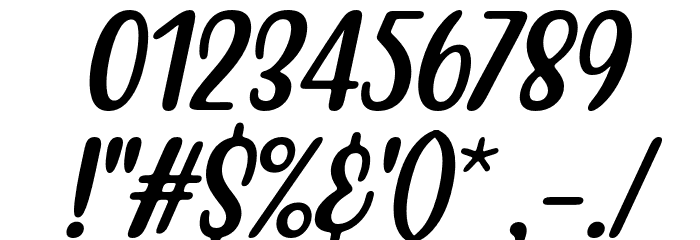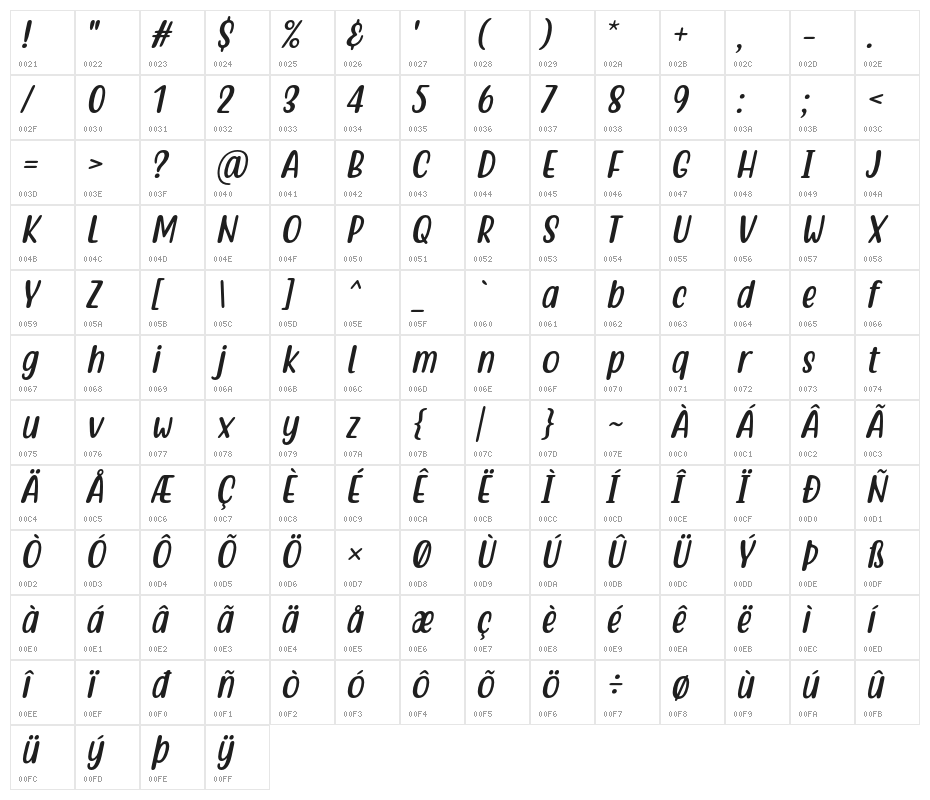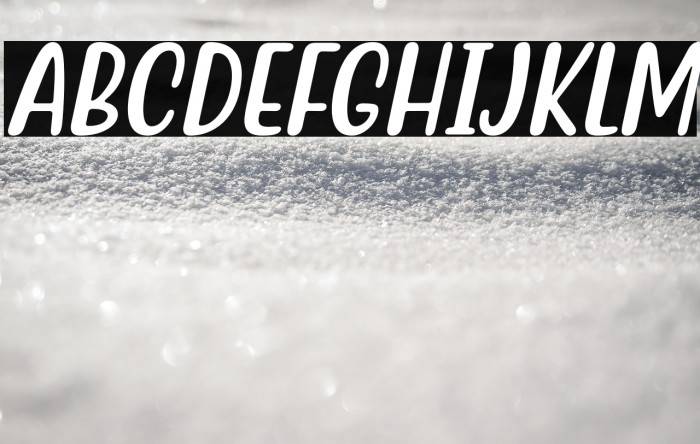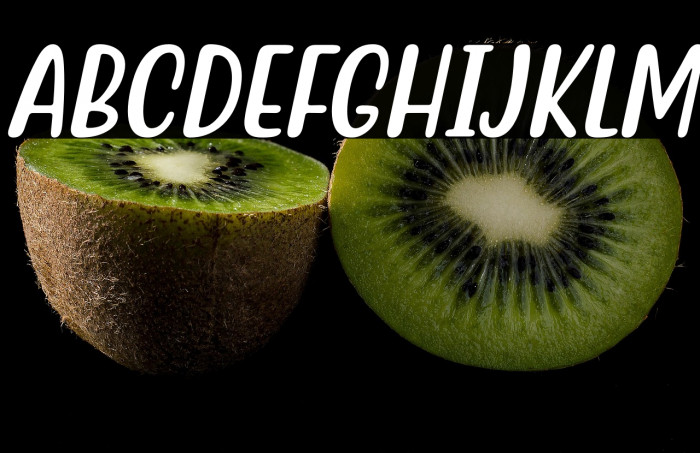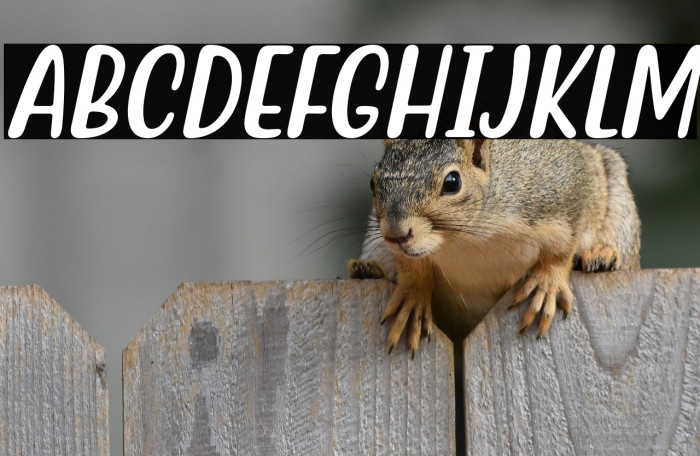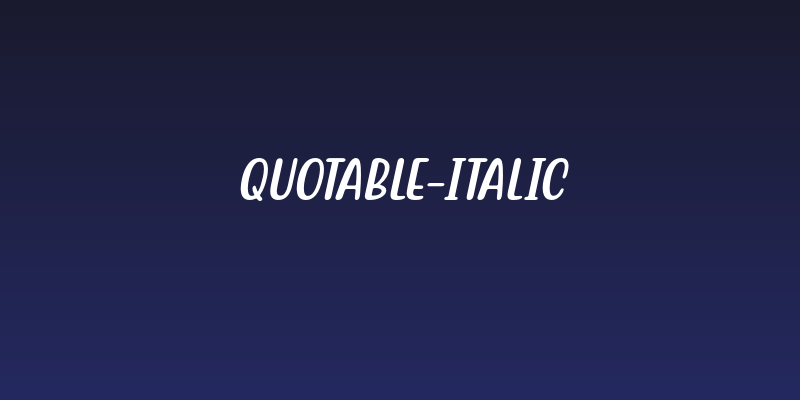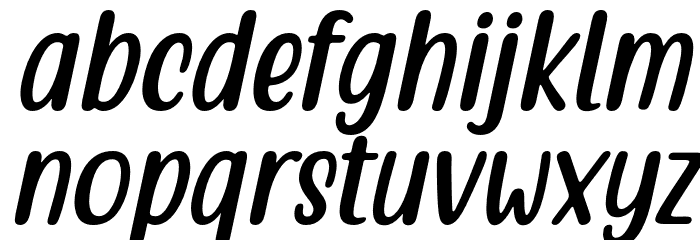
Quotable-Italic Font
Quotable-Italic Description
This font features a smooth, flowing italic style with a modern and approachable feel. The characters are slightly slanted, giving a sense of motion and elegance. The strokes are consistent and rounded, providing a friendly and casual appearance. The uppercase and lowercase letters are well-balanced, with a harmonious blend of curves and straight lines. The numerals and special characters maintain the same fluidity, ensuring uniformity across all text. This font is versatile and can be used in various design contexts.
| Use Case | Headlines, Logos, Quotes |
| Proposed Projects | Ideal for branding, quotes, social media graphics, and invitations. |